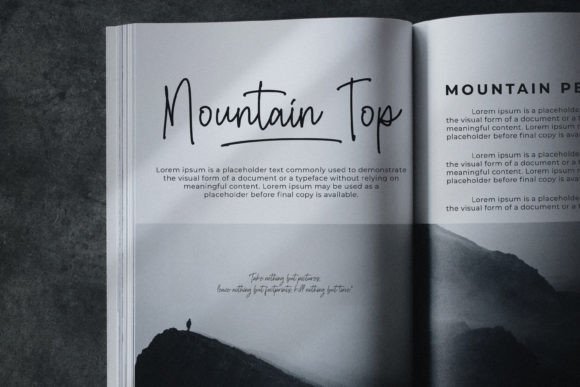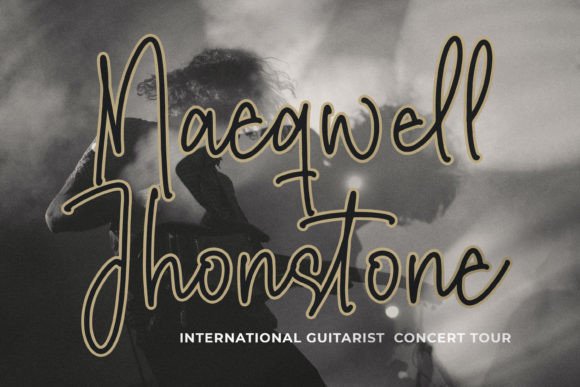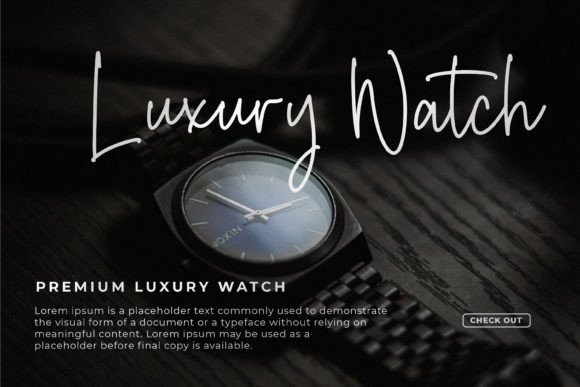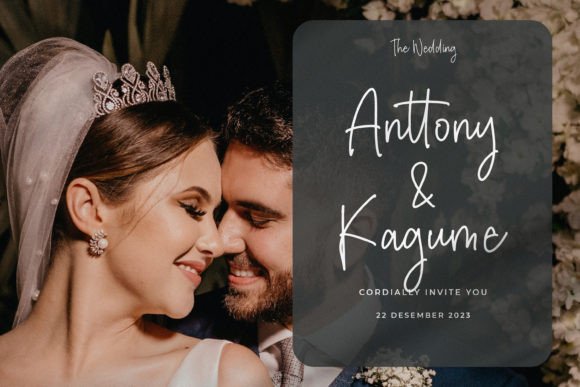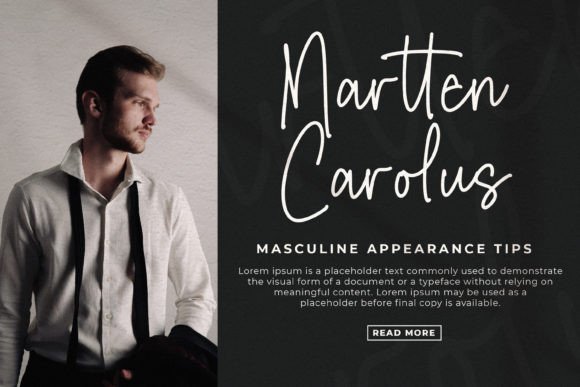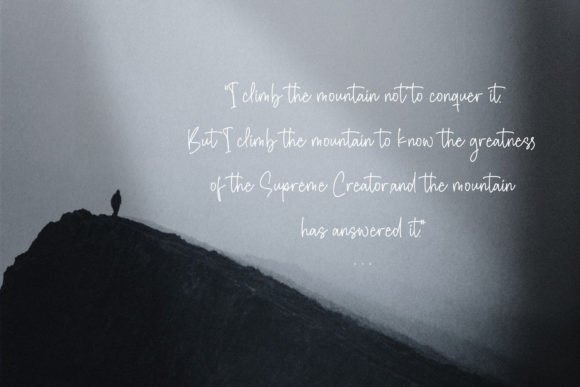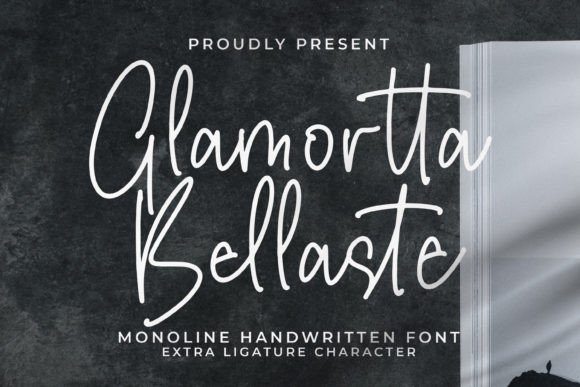
Glamortta Bellaste Font: Elevate Your Designs with Luxury and Elegance
Are you a designer or crafter looking for a premium font to add a touch of luxury and elegance to your projects? Look no further than Glamortta Bellaste, a stunning Monoline Handwritten Font that is perfect for a wide range of applications. In this article, we’ll explore the features and benefits of Glamortta Bellaste and show you how to make the most of this versatile font.
What is Glamortta Bellaste?
Glamortta Bellaste is a premium Monoline Handwritten Font designed to add a touch of sophistication and glamour to any project. With its elegant and refined lines, this font is perfect for designers and crafters who want to create high-end designs that exude luxury and style. Whether you’re working on a logo, branding project, or product packaging, Glamortta Bellaste is the perfect choice.
Key Features of Glamortta Bellaste
- Monoline Handwritten Font: Glamortta Bellaste is a monoline handwritten font, which means that it features smooth, flowing lines that are perfect for creating elegant and refined designs.
- Premium Quality: This font is designed to provide premium quality, making it perfect for luxury projects that require attention to detail and a high-end aesthetic.
- Versatile: Glamortta Bellaste is a versatile font that can be used for a wide range of projects, including logos, branding projects, homewares designs, product packaging, and more.
- Elegant and Refined: This font features elegant and refined lines that are perfect for creating sophisticated and glamorous designs.
Uses for Glamortta Bellaste
Glamortta Bellaste is a versatile font that can be used for a wide range of projects, including:
- Logos and Branding Projects: Use Glamortta Bellaste to create a luxurious and sophisticated logo or branding project that will elevate your brand to the next level.
- Homewares Designs: Add a touch of elegance to your homewares designs, such as ceramics, textiles, and other decorative items.
- Product Packaging: Use Glamortta Bellaste to create premium product packaging that will make your products stand out on store shelves.
- Mugs and Drinkware: Add a touch of luxury to your mugs and drinkware with Glamortta Bellaste.
- Posters and Quotes: Use Glamortta Bellaste to create stunning posters and quotes that will add a touch of elegance to any room.
- T-Shirts and Apparel: Create premium t-shirts and apparel with Glamortta Bellaste.
- Business Cards and Stationery: Use Glamortta Bellaste to create luxurious business cards and stationery that will make a lasting impression.
Tips for Using Glamortta Bellaste
Here are some tips for using Glamortta Bellaste to get the most out of this amazing font:
- Use it with a Simple Background: Glamortta Bellaste looks best with a simple background, so try using it with a solid color or a subtle texture.
- Experiment with Colors: Try using Glamortta Bellaste with different colors to create a unique and eye-catching design.
- Mix and Match with Other Fonts: Glamortta Bellaste can be paired with other fonts to create a unique and interesting design.
- Pay Attention to Kerning and Spacing: Make sure to pay attention to kerning and spacing when using Glamortta Bellaste to ensure that your design looks professional and polished.
Glamortta Bellaste is a premium Monoline Handwritten Font that is perfect for designers and crafters who want to add a touch of luxury and elegance to their projects. With its elegant and refined lines, this font is versatile and can be used for a wide range of applications. Whether you’re working on a logo, branding project, or product packaging, Glamortta Bellaste is the perfect choice. So why wait? Download Glamortta Bellaste today and start creating stunning designs that exude luxury and style!